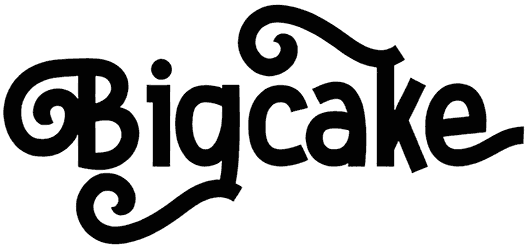
Bigcake Font
For those who are interested in childish nostalgic vibes with a handwriting style, this retro font is the most effective. It can touch the audience’s spirit with a playful atmosphere. Bigcake compensates for the lack of numbers with a fun cartoonish style.